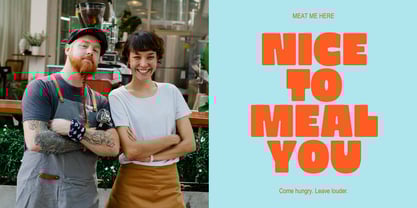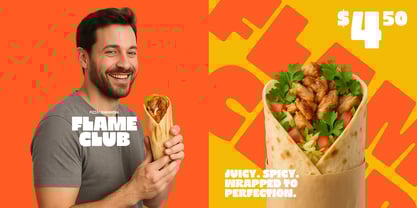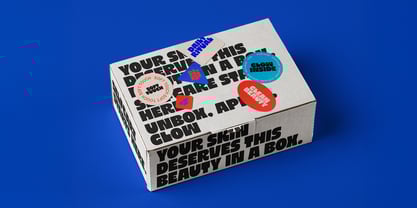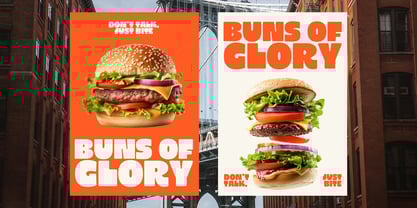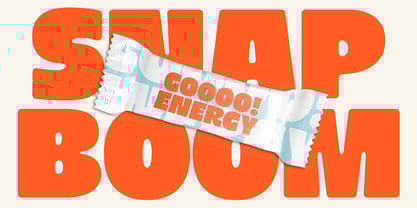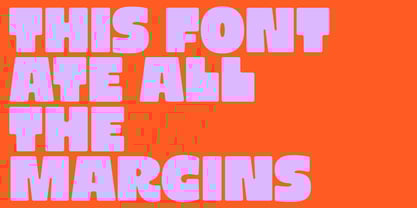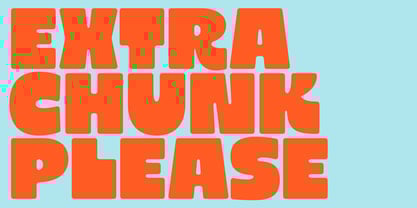
Extra Chunk Please
Extra Chunk Please is a modern display font that blends bold geometry with playful minimalism. With rounded edges and strong character design, it's ideal for clean, typography-focused layouts.
Great for:
- Minimal branding & packaging
- Bold editorial design
- Clean menus & posters
- Social media graphics